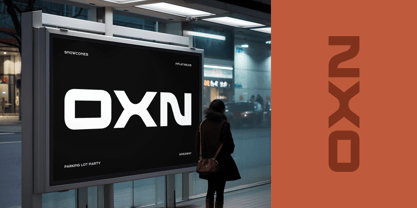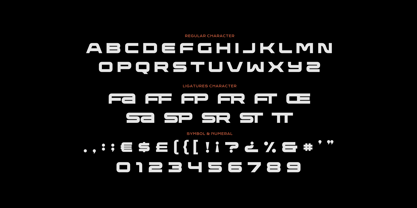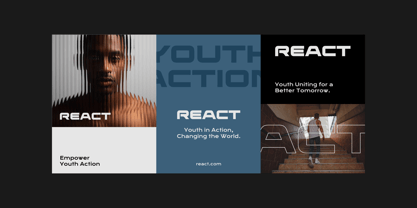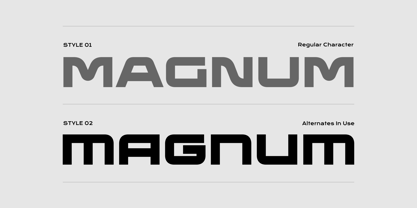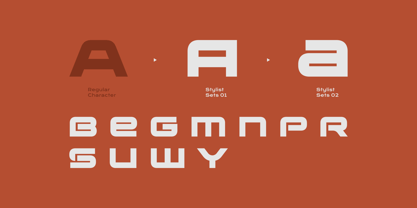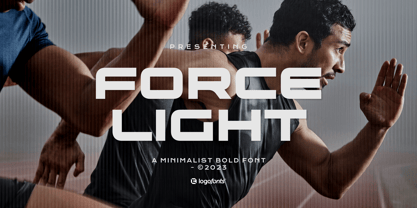
Force Light
La familia tipográfica Force Light fue diseñada por Anna Safitri y publicada por Logofonts. Force Light contiene 1 estilos.
Force Light is a bold and innovative futuristic typeface that redefines the boundaries of modern design. With its clean, angular lines, minimalistic approach, and unique letterforms, this typeface channels the spirit of tomorrow. Perfect for high-tech brands, digital interfaces, and sci-fi-inspired projects, Force Light creates an unmistakable visual identity that feels ahead of its time. Its distinctive style blends geometric precision with dynamic energy, making it a versatile choice for both display typography and branding. Whether you’re designing a cutting-edge website, a futuristic logo, or immersive digital experiences, Force Light brings a sleek, modern edge to any creative project.